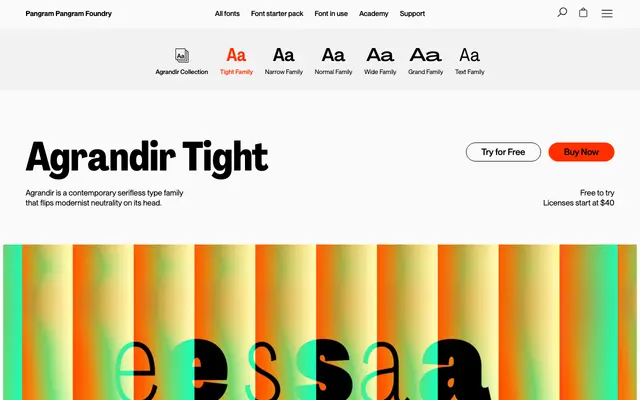
Agrandir Tight specimen from Pangram Foundry
The tightly-spaced cut of Alex Slobzheninov's Agrandir, tuned for dense display settings.
The Tight width of Agrandir by Alex Slobzheninov, the most compressed cut in the system. Fourteen styles span seven weights from Thin to Black with italics and 443 glyphs each. The family's alternates and presets carry through, so Tight handles posters and big display lockups while still talking to Normal and Wide in body settings.